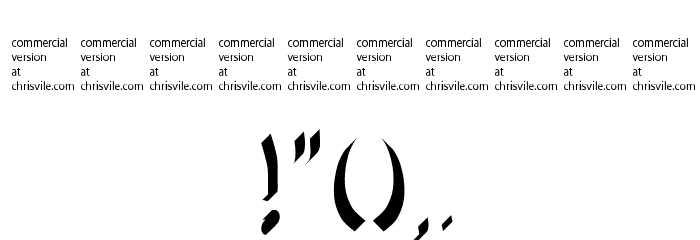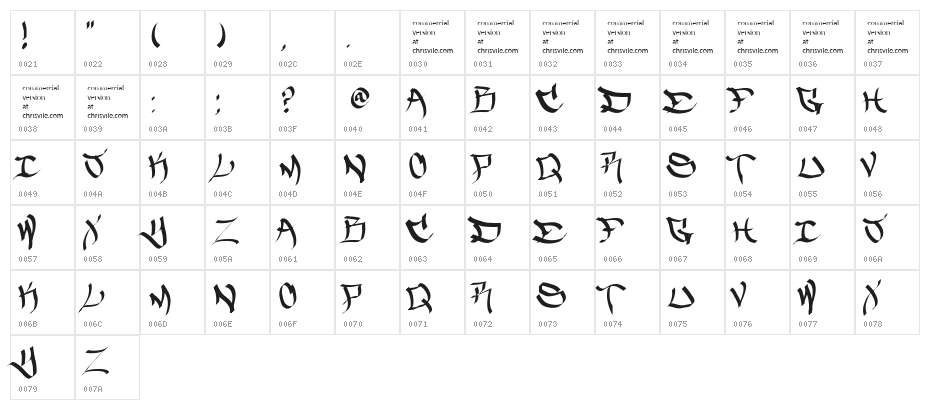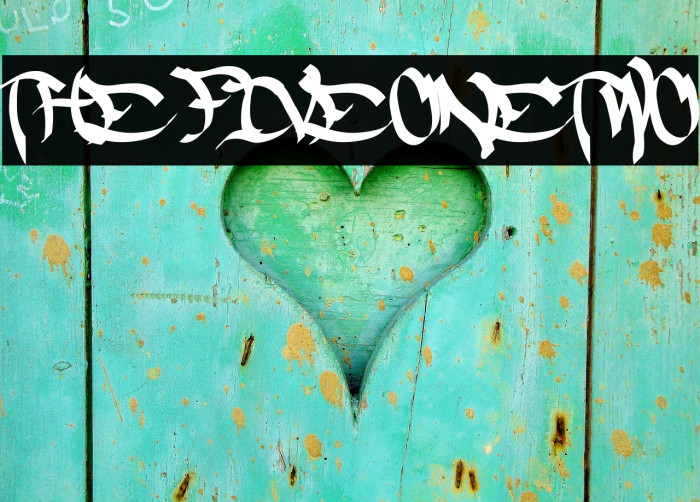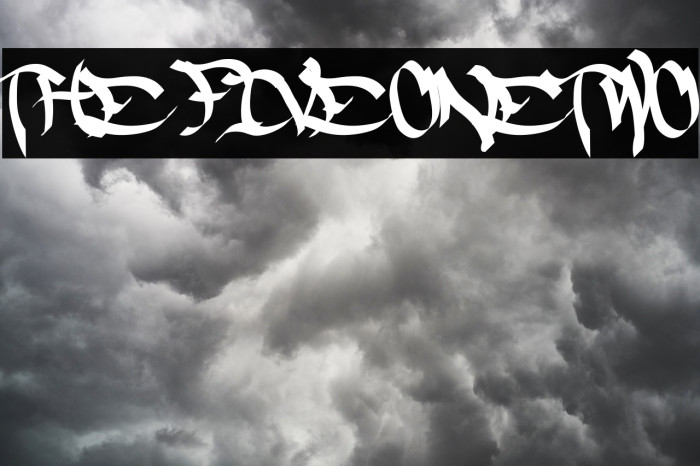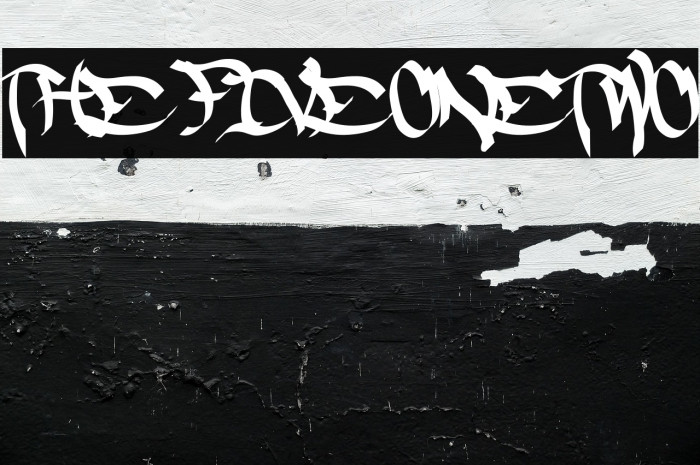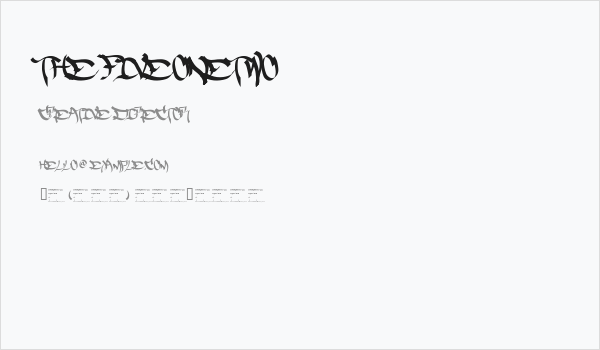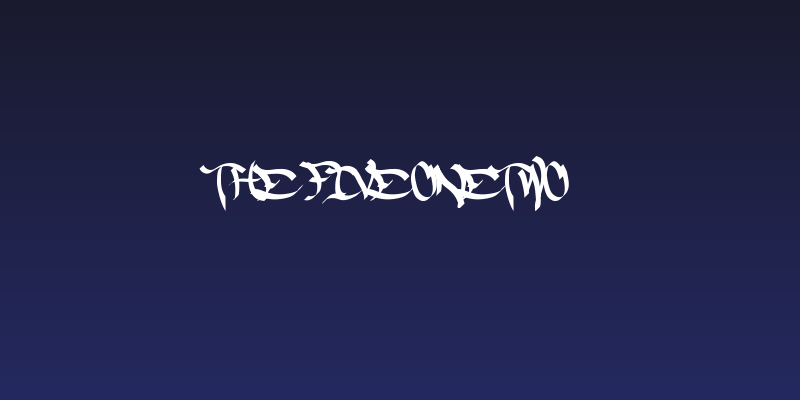
The FiveOneTwo Font
The FiveOneTwo Description
This font features a bold and edgy design with sharp, angular lines and a graffiti-like aesthetic. The characters are highly stylized, with exaggerated curves and pointed edges that give it a dynamic and rebellious feel. The uppercase and lowercase letters maintain a consistent style, while the numbers and special characters complement the overall look. This font's unique appearance makes it stand out, offering a modern twist on traditional calligraphy with a street art influence.
| Use Case | Logos, Headlines, Posters |
| Proposed Projects | Ideal for urban-themed designs, streetwear branding, music album covers, and event posters. |